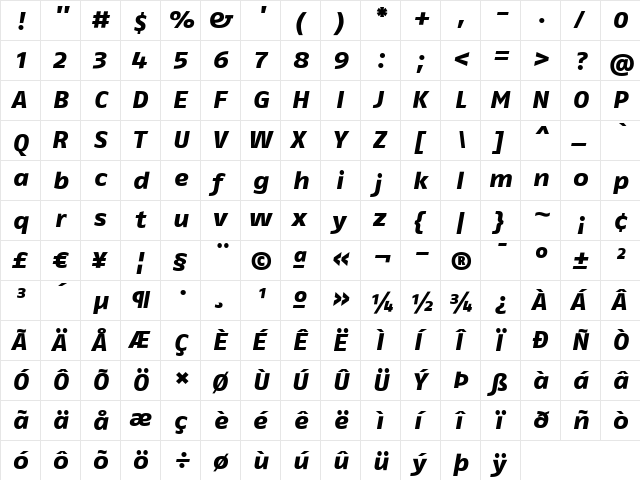
FagoExLf ItalicExtrabold Font Preview
FagoExLf ItalicExtrabold
FagoExLf ItalicExtrabold Font Details
| Style | ItalicExtrabold |
| Foundry | Ole Schaefer, . Published by FontShop International for FontFont Release Fago Extended is a trademark of FSI Fonts and Software GmbH |
Design Context for FagoExLf Typeface
FagoExLf takes a measured approach to typography — its balanced proportions and neutral character make it a reliable workhorse for both digital and print work. Its italic angle brings a sense of urgency and motion to the letterforms. The heavy weight commands attention and anchors typographic hierarchies.
Pro Tip: Use FagoExLf for emphasis, pull quotes, and subheadings where its slanted energy can add rhythm to the layout.